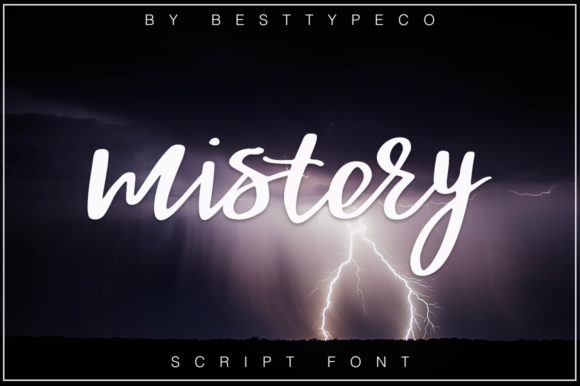
Craft elegant and captivating documents with the exquisite Mistery Font, a masterpiece from BennyDesigns. This extraordinary script font effortlessly captures the essence of sophistication while exuding a modern and invigorating spirit. Its intricate curves and graceful lines lend an air of timeless charm to any design, making it the perfect choice for those seeking to add a touch of distinction to their creative endeavors.
Step into a world of endless possibilities with Mistery Font. Its versatility knows no bounds, seamlessly adapting to a myriad of projects. From the delicate strokes of greeting cards to the bold statements of branding materials, this font empowers you to express your individuality with unparalleled style. Its presence enhances business cards, lending a touch of professionalism and credibility. Quotes, posters, and websites come alive with its enchanting allure, captivating your audience with its timeless appeal.
Elevate your merchandise and packaging designs to new heights with Mistery Font. Its graceful contours and impeccable flow add a touch of undeniable sophistication, transforming everyday items into objects of desire. Invitations adorned with this font carry a promise of elegance and joy, setting the perfect tone for any special occasion.
Mistery Font is more than just a font; it's an investment in your creativity. Its ability to elevate your designs to new heights is unparalleled, ensuring that your creations stand out from the crowd. Embrace the beauty and versatility of this exceptional font and unlock a world of endless possibilities.